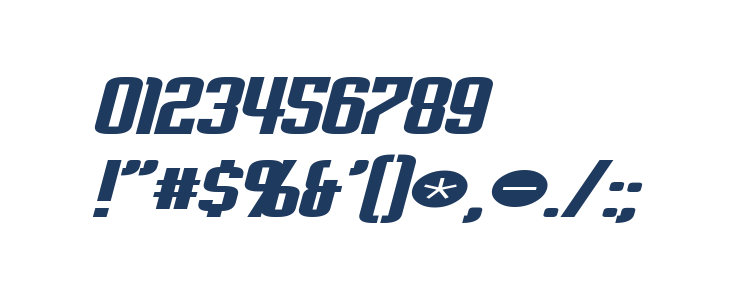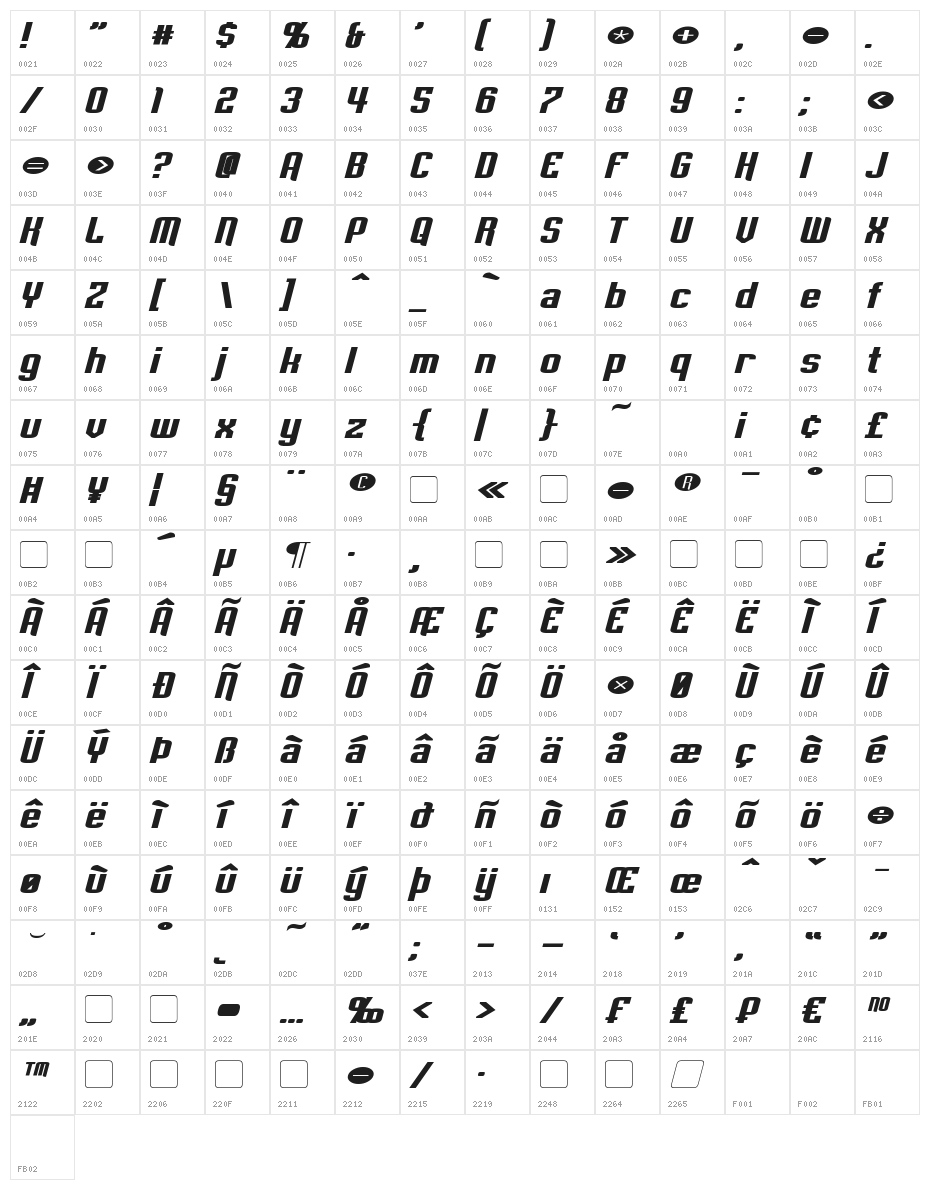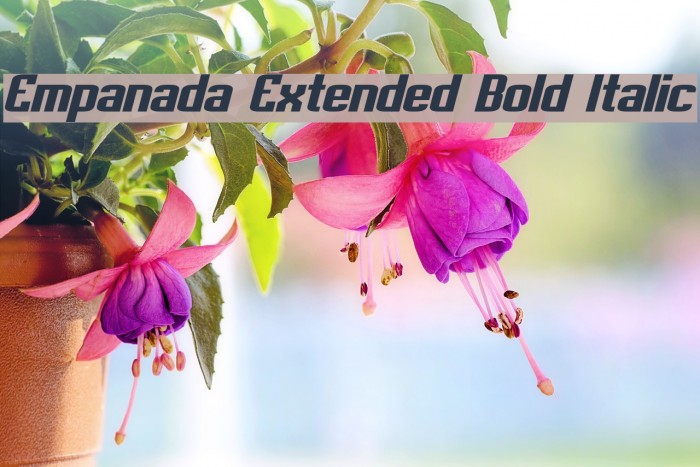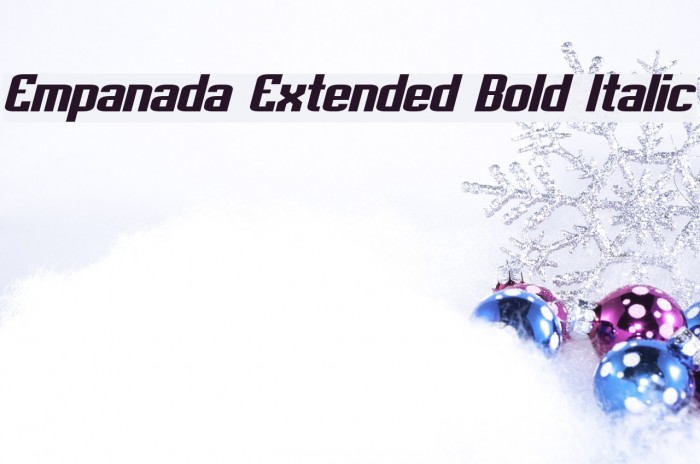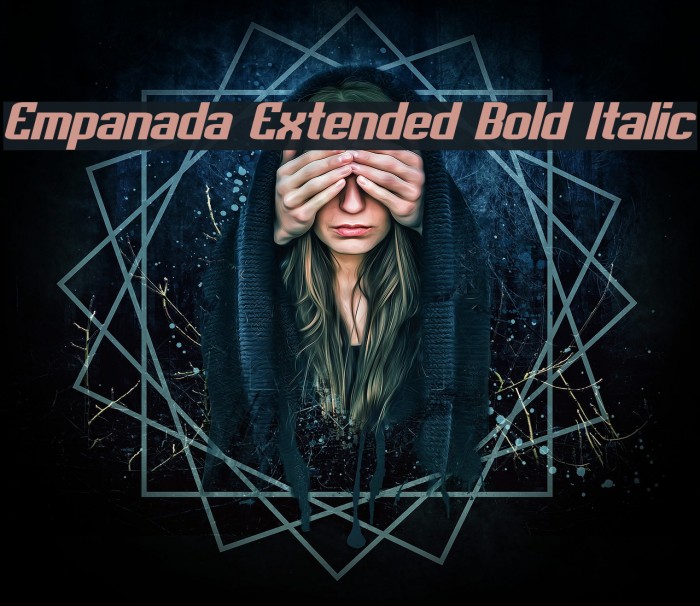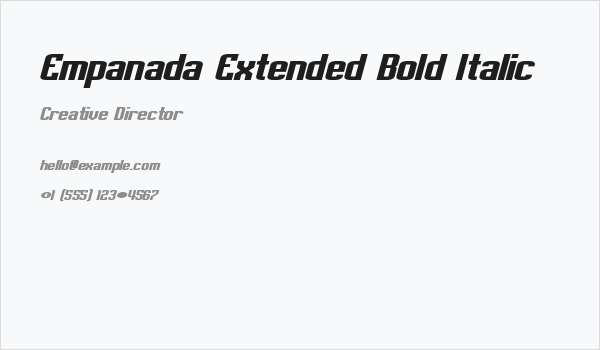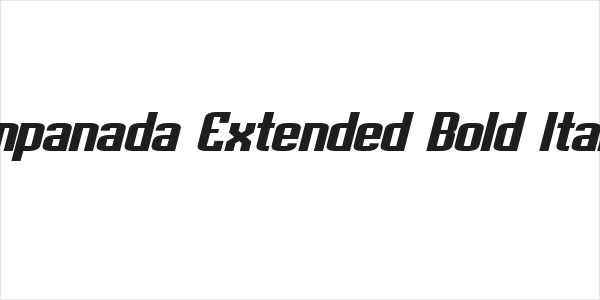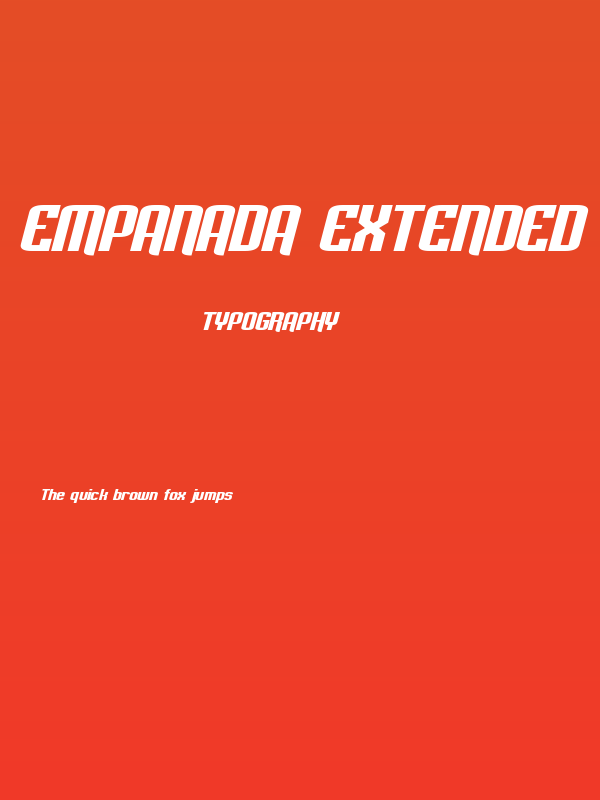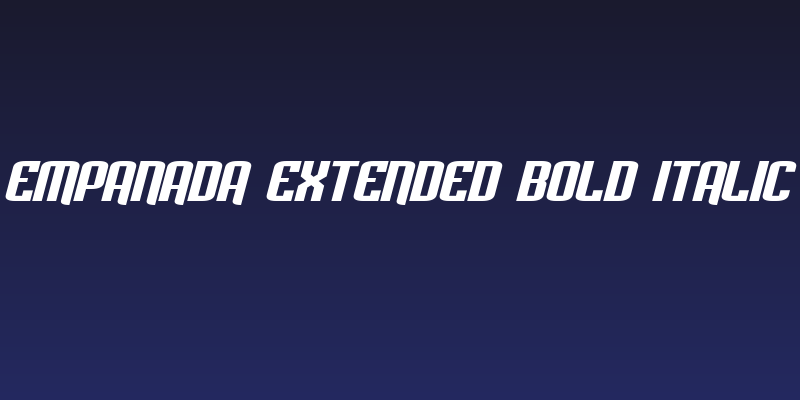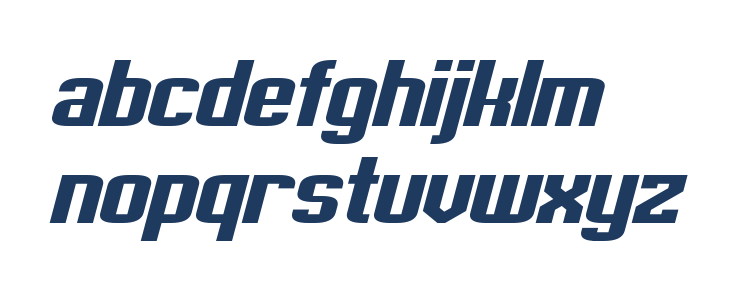
Empanada Extended Bold Italic Font
Empanada Extended Bold Italic Description
This font features a bold and italicized style with an extended width, giving it a strong and dynamic presence. The characters are designed with a modern flair, incorporating sharp angles and clean lines that convey a sense of energy and movement. The uppercase letters are particularly striking, with a slightly condensed form that enhances their boldness. The lowercase letters maintain the same dynamic quality, ensuring consistency across the typeface. Numbers and special characters are equally bold, making them stand out in any design. The overall design is sleek and contemporary, making it suitable for projects that require a bold statement.
| Proposed Projects | Ideal for branding, advertising, headlines, and any project that requires a strong visual impact. |